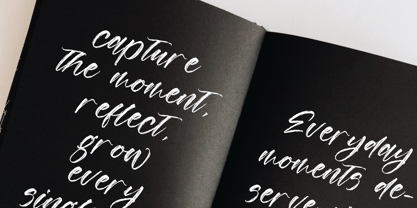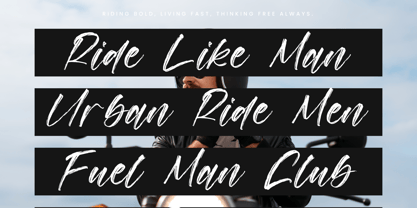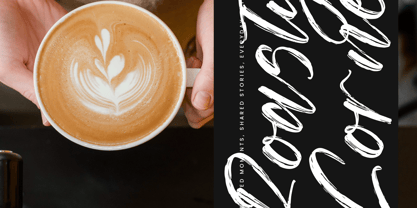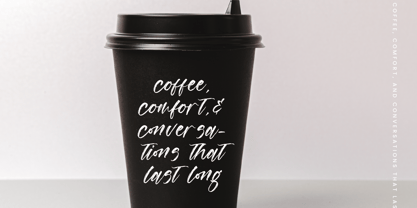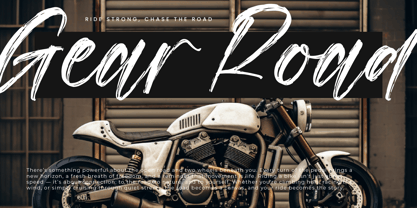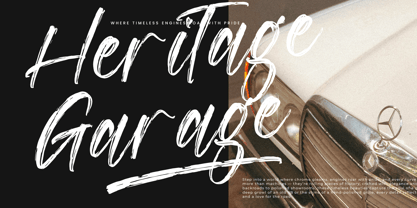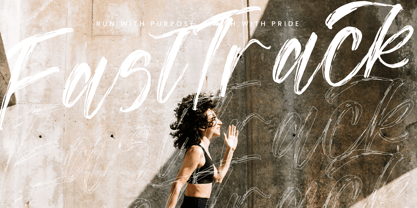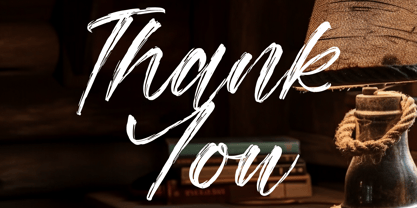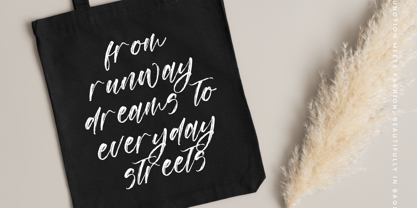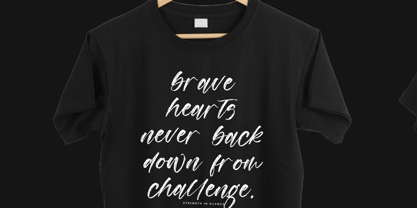
Goldens Blush
by Integritype
The Goldens Blush Font Family was designed by Dimas Alif Maulana and published by Integritype. Goldens Blush contains 2 styles and family package options.
Goldens Blush - A Modern Handwritten Brush Font, from Integritype Studio, perfect for any project like: logos, branding projects, homewares designs, product packaging, mugs, quotes, posters, shopping bags, t-shirts, covers books, business cards, invitation cards, greeting cards, labels, photography, watermarks, special events and all your other luxury projects that require a premium taste.